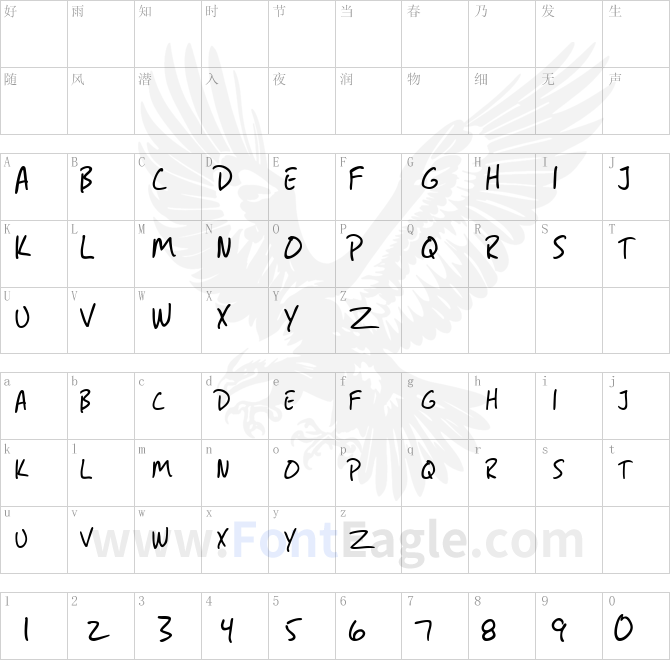
- Font name:SF Grunge Sans SC
- Font Full Name:SF Grunge Sans SC
SF-Grunge-Sans-SC is a great font, widely used in graphic design, single-page menu design, poster design and other fields, and is deeply loved by designers.SF-Grunge-Sans-SC download.